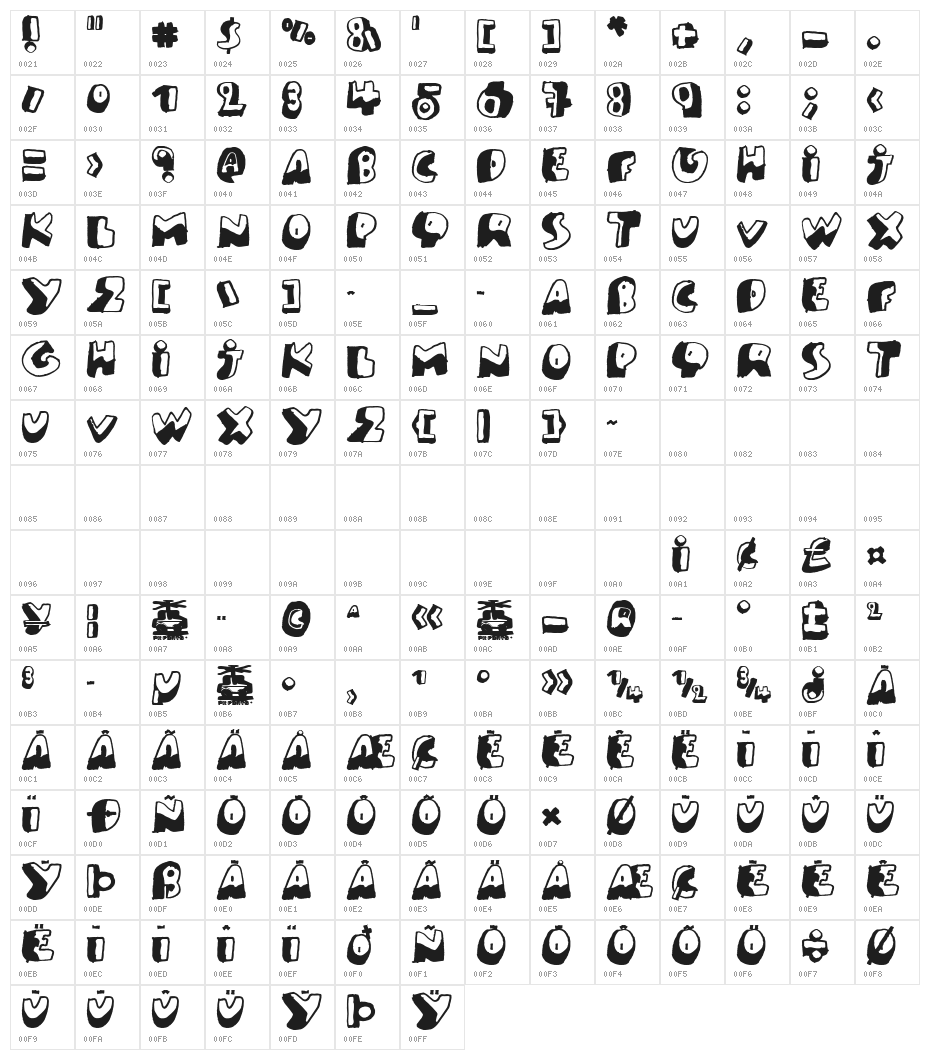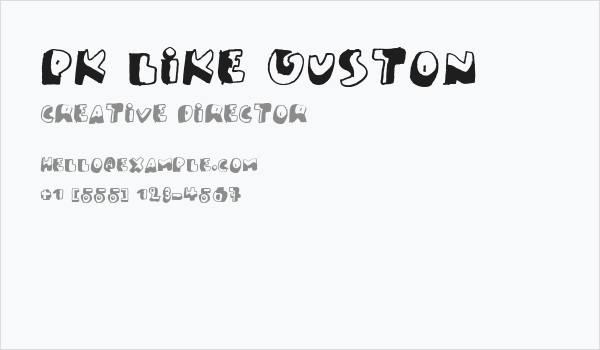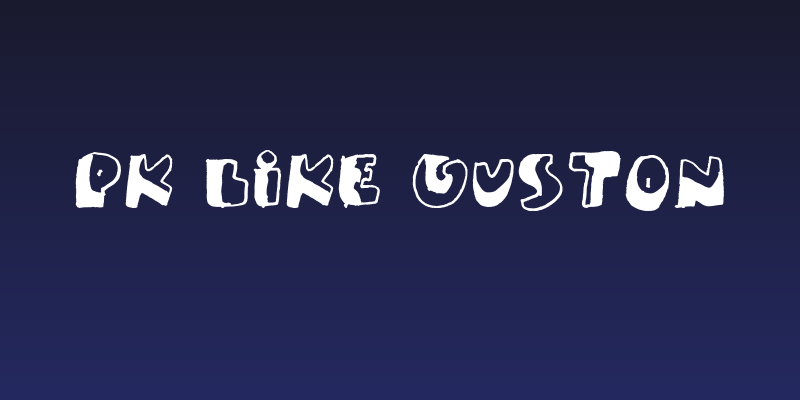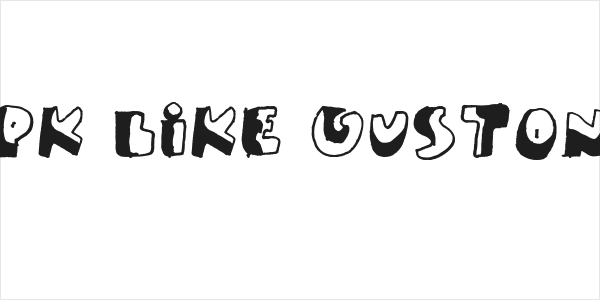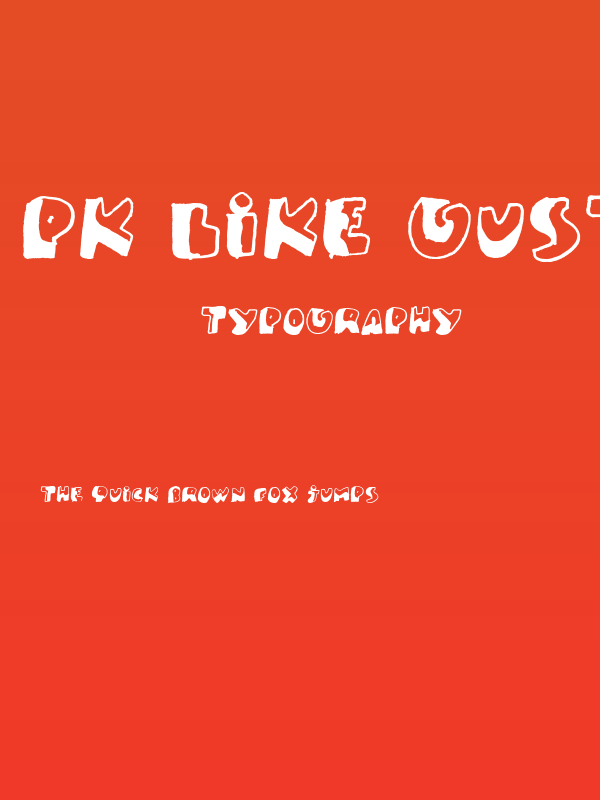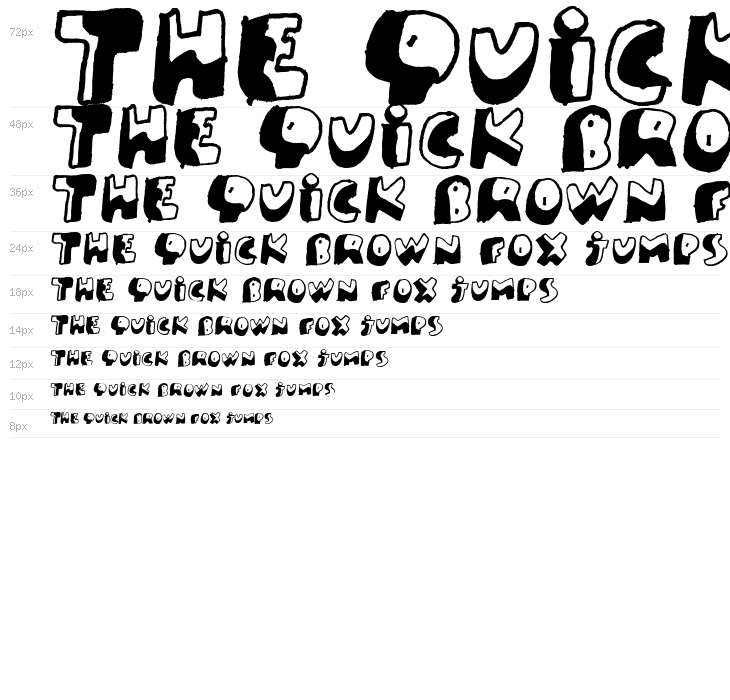
PK Like Guston Font
PK Like Guston Description
This font features a bold, playful style with a hand-drawn appearance. The characters are irregular and quirky, with a mix of thick and thin strokes that give it a dynamic and energetic feel. The uppercase and lowercase letters maintain a consistent whimsical style, while the numbers and special characters complement the overall design. The font's unique and artistic look makes it stand out, ideal for creative projects that require a touch of personality and flair.
| Overall Style | Playful, Artistic |
| Use Case | Headlines, Posters, Branding |
| Proposed Projects | Ideal for children's books, comic strips, playful branding, and artistic posters. |